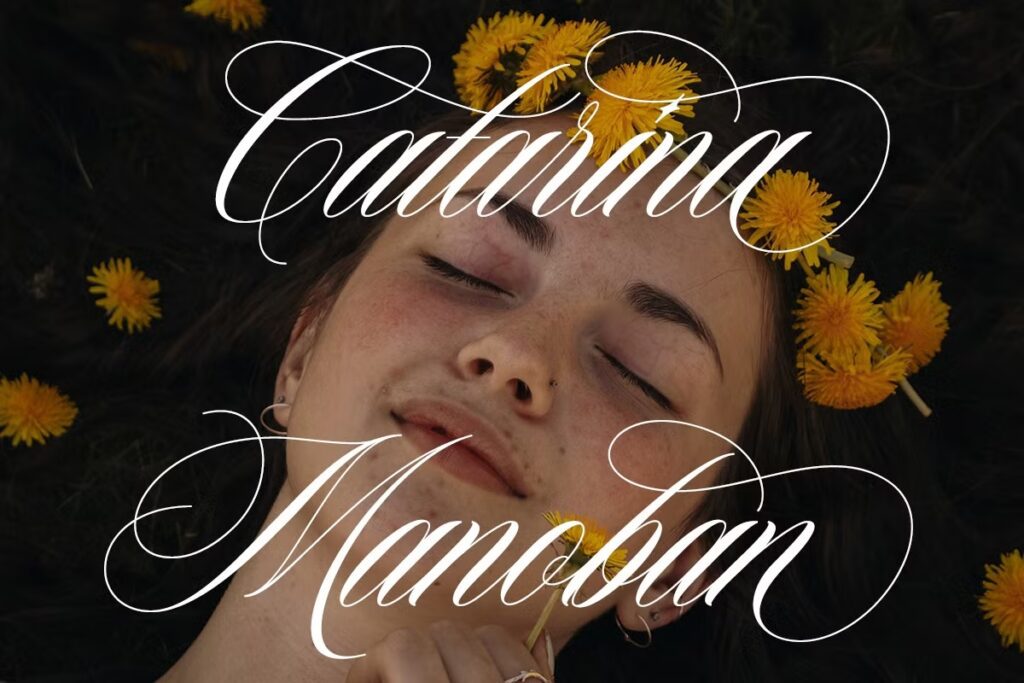
Elevate Your Designs with Angeline Regular: A Modern Calligraphy Font
Introducing Angeline, our latest product that brings a touch of modern elegance to your design projects. Angeline is a stunning calligraphy font that includes uppercase and lowercase letters, numerals, a wide range of punctuation, and ligatures. This versatile font also features over 10 ending swashes and alternative fonts for both uppercase and lowercase letters, making it perfect for any design that needs a personal, stylish touch.
Key Features of Angeline
Angeline is designed to provide you with a comprehensive set of tools to enhance your creative work. Here are some of its standout features:
Uppercase and Lowercase Letters: Each letter comes with over 10 ending swashes and alternative styles, allowing you to create unique and personalized designs.
Numerals and Punctuation: A complete set of numerals and punctuation ensures that you have everything you need for your text layouts.
Ligatures: Special ligatures are included to give your text a more natural, handwritten feel.
Multilingual Support: Angeline supports multiple languages, making it accessible for a global audience.
Swashes and Opentype Features: Add decorative swashes to your letters and take advantage of OpenType features to enhance your typography.
Why Choose Angeline?
Angeline is perfect for anyone looking to add a modern calligraphy touch to their designs. Whether you’re creating wedding invitations, branding materials, or any other type of design that requires a stylish script, Angeline has you covered. Its versatility and wide range of features make it an essential tool for designers looking to create elegant and unique text.